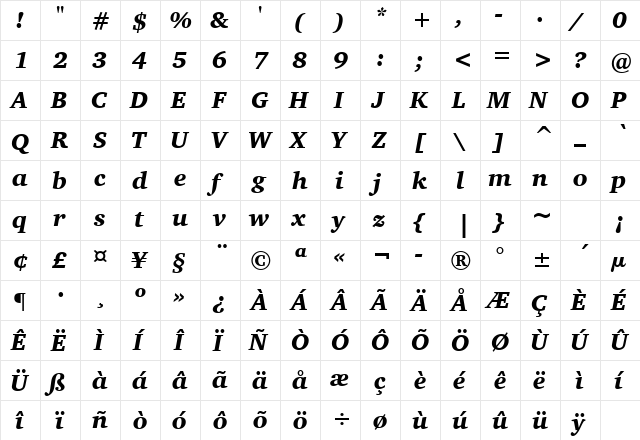
Charter ITC GX Black Italic
Design Context for Charter ITC GX Typeface
Charter ITC GX takes a measured approach to typography — its balanced proportions and neutral character make it a reliable workhorse for both digital and print work. Its italic angle brings a sense of urgency and motion to the letterforms.